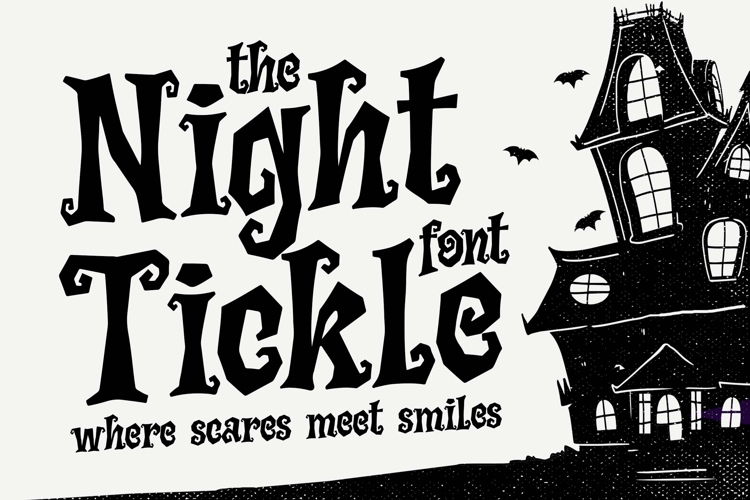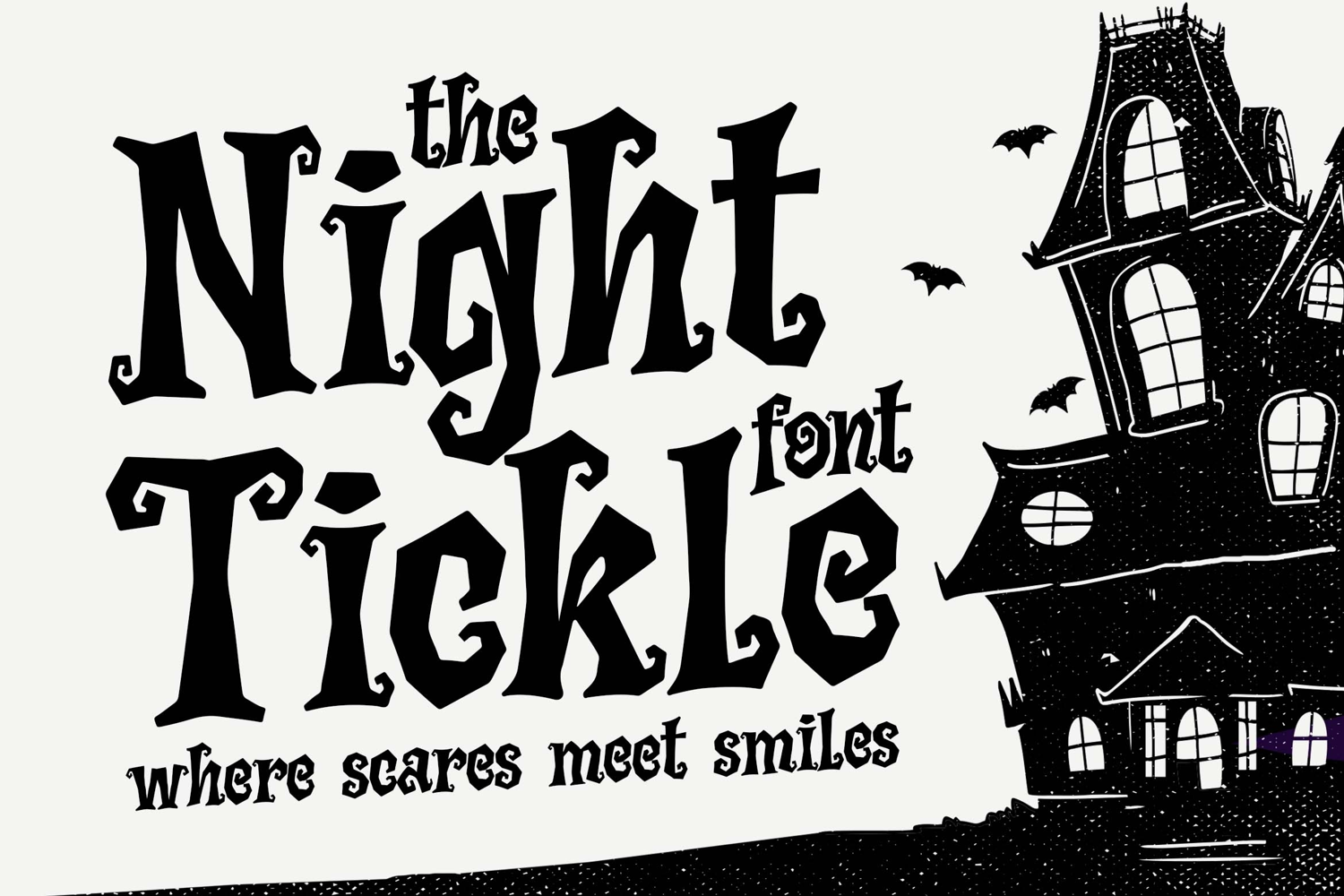
Night Tickle a Horror Playful Font
Hello, awesome people! This time, we have a new font called Night Tickle a Horror Playful Font by Blankids Studio.
Night Tickle a Horror Playful Font is made for any professional project branding, such as logotype, watermarks, poster, branding, promotions, product packaging, etc. Every letter has a horror playful style design. This font comes in Otf. and Ttf. files.
Night Tickle font includes a full set of horror playful uppercase and lowercase letters, numerals and punctuation. This font has a horror playful style. See the previews above to get some inspiration on how to use them. Happy designing!